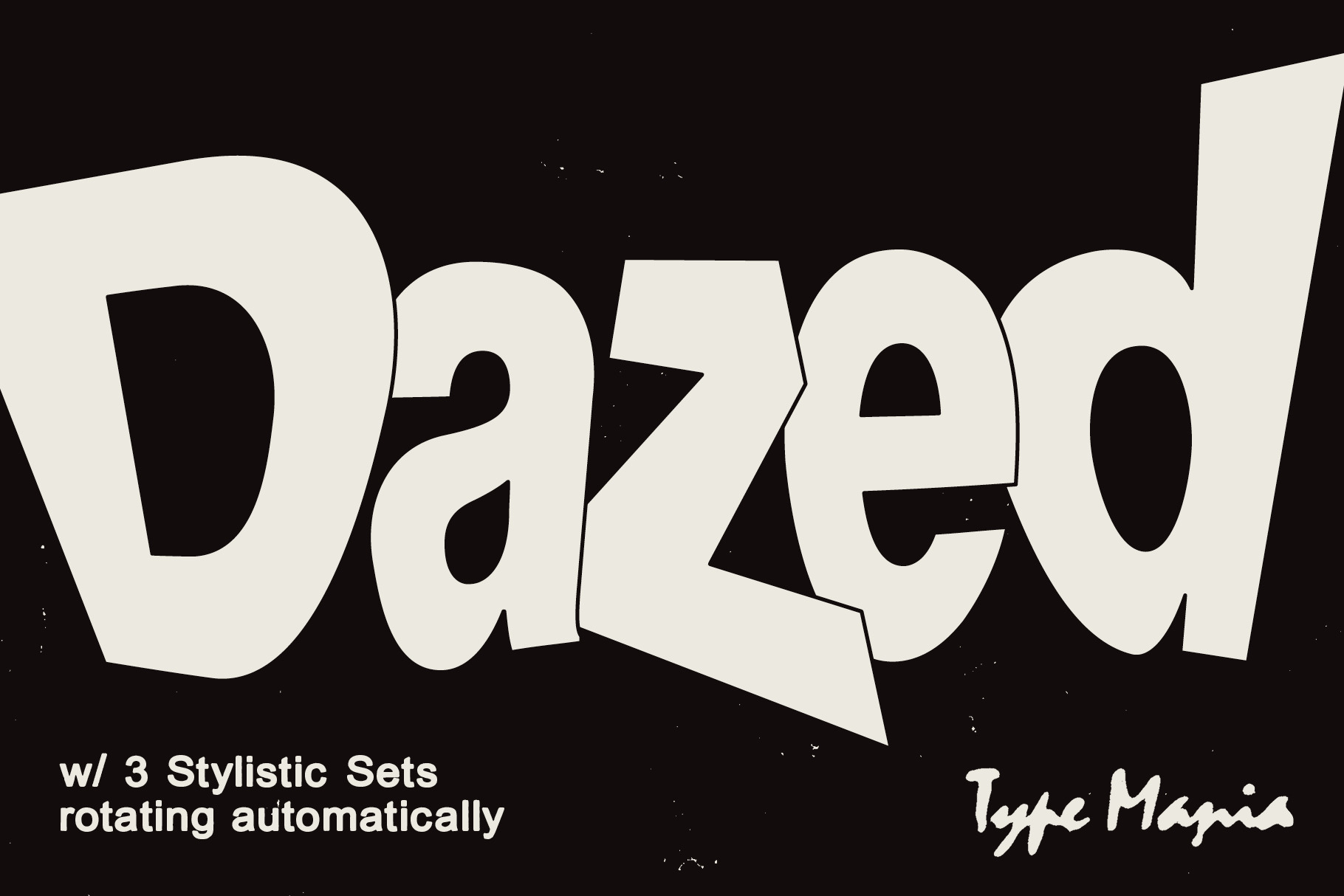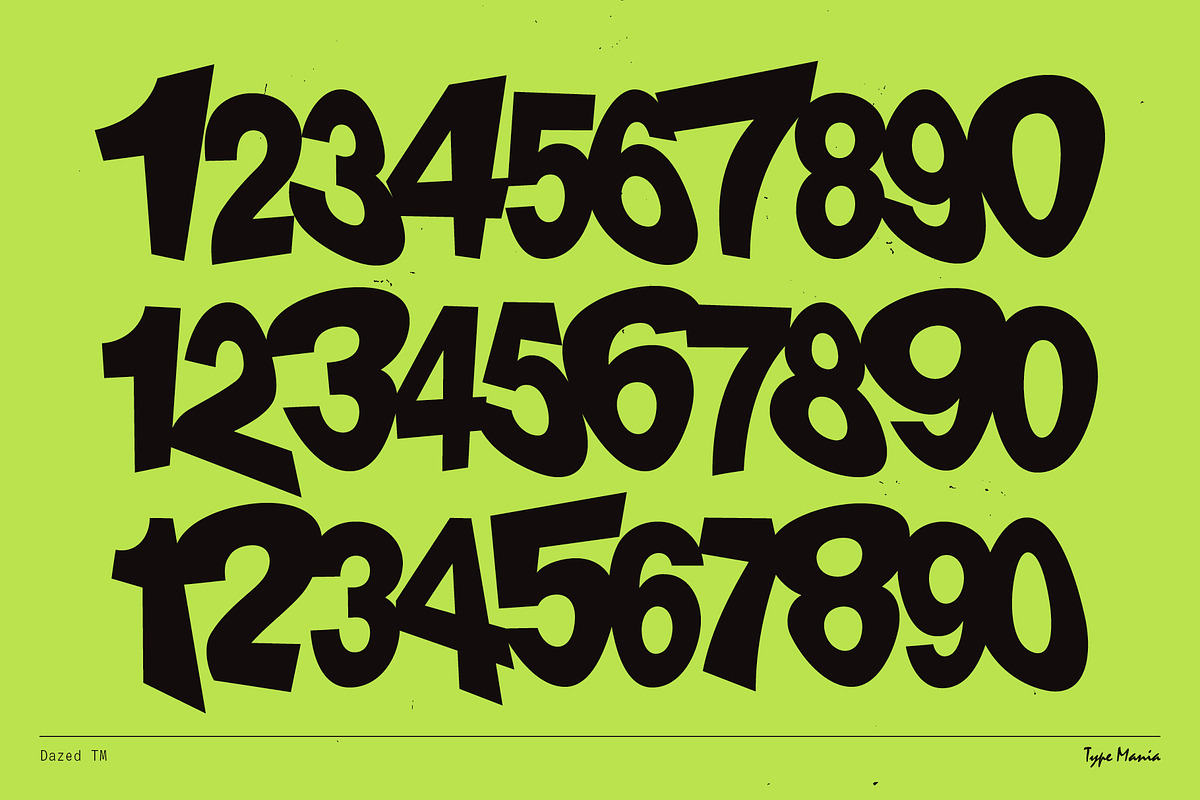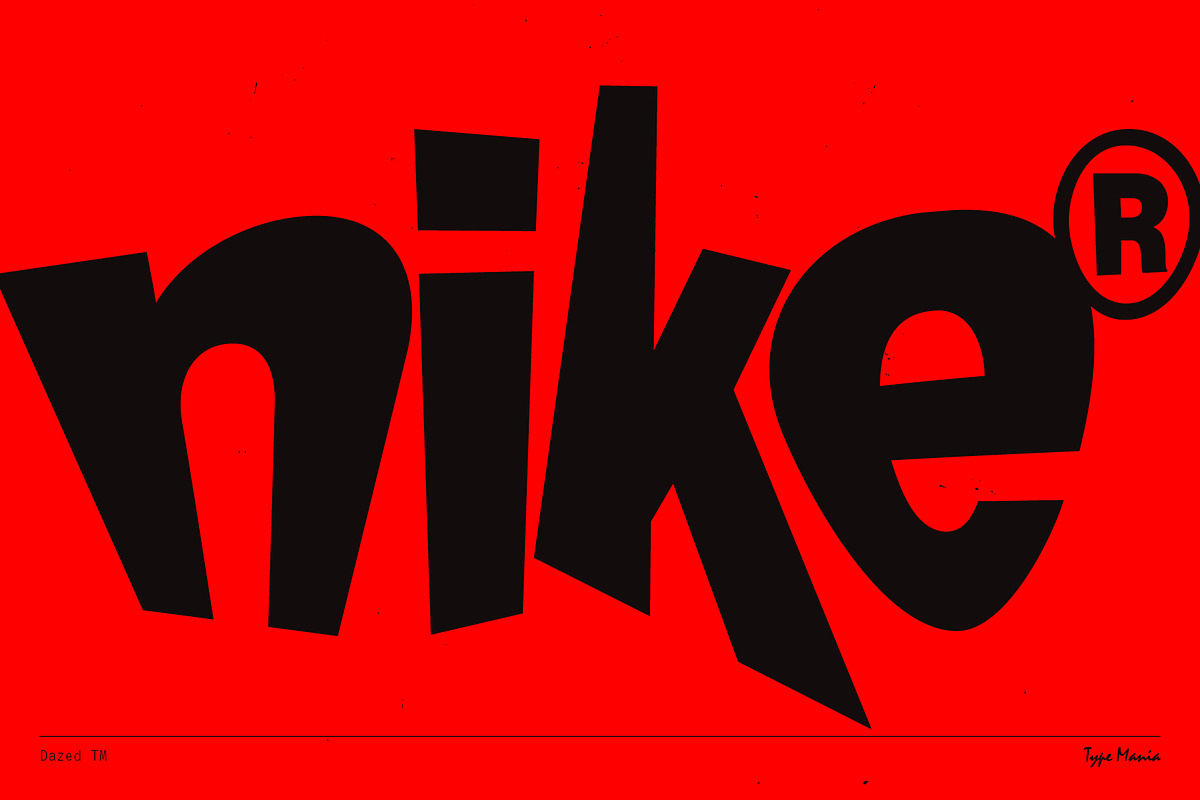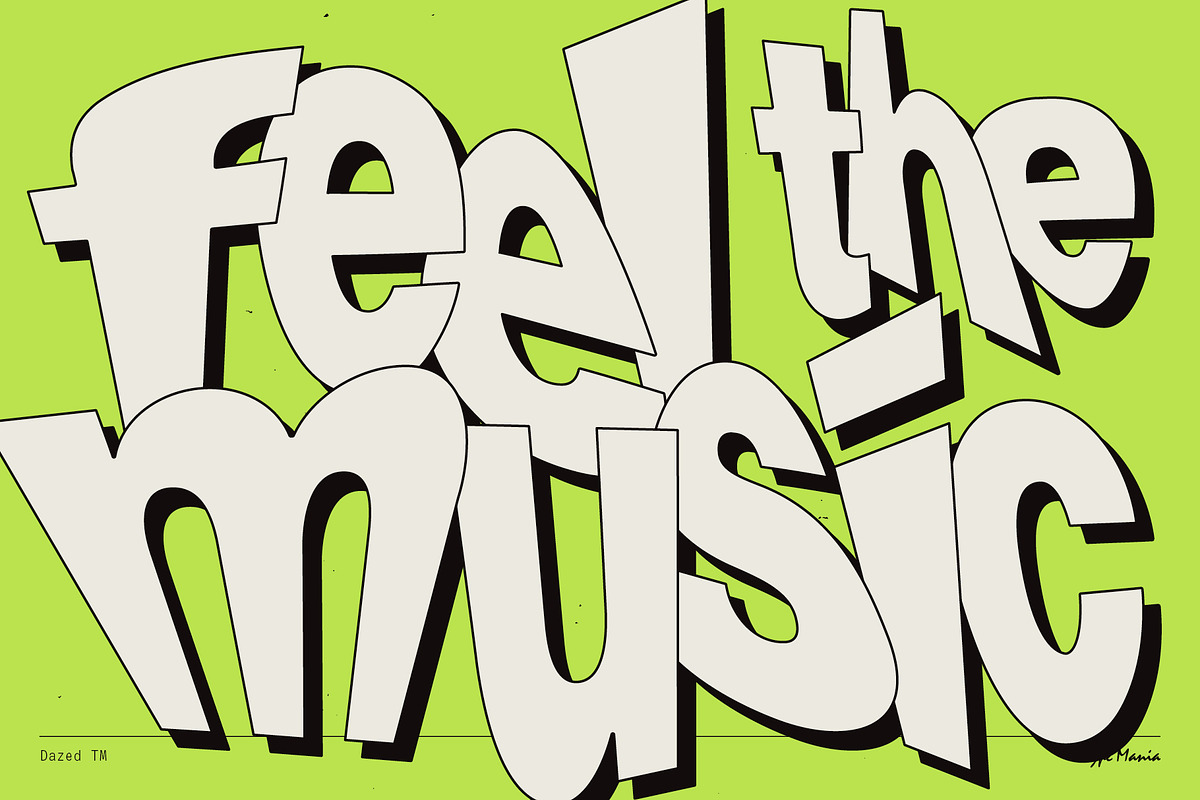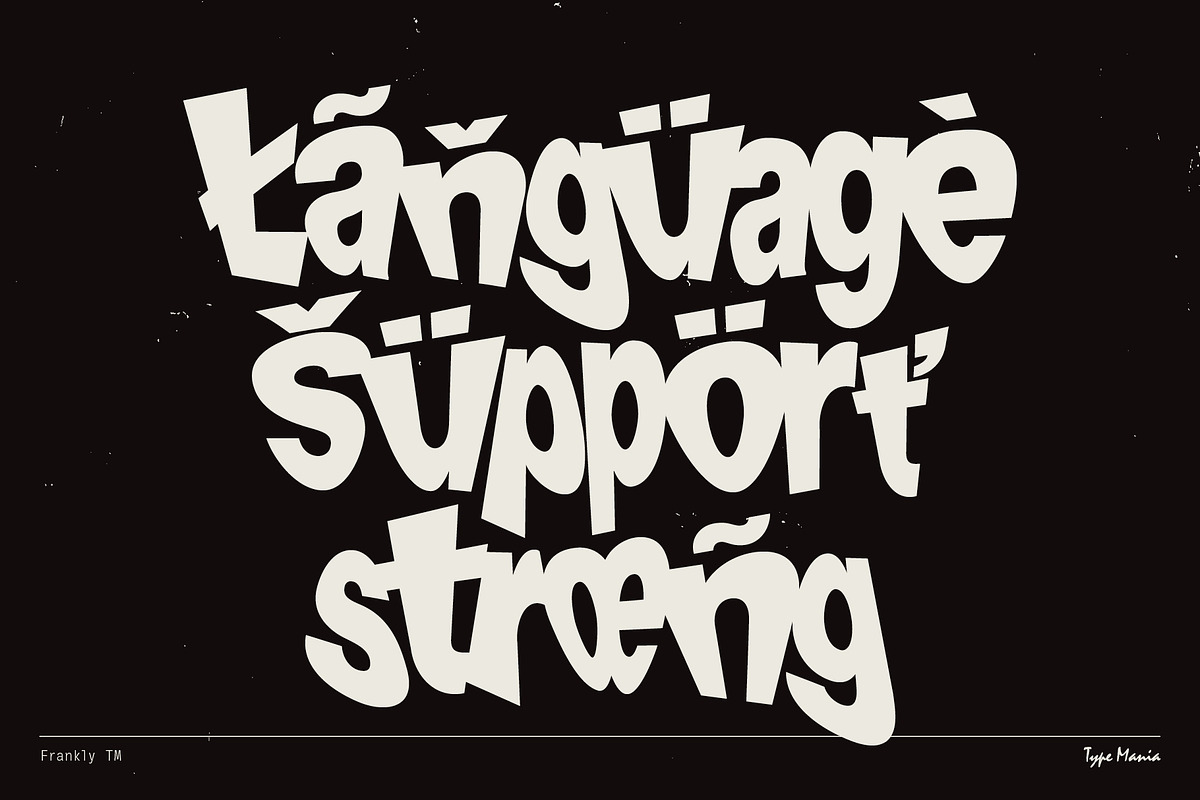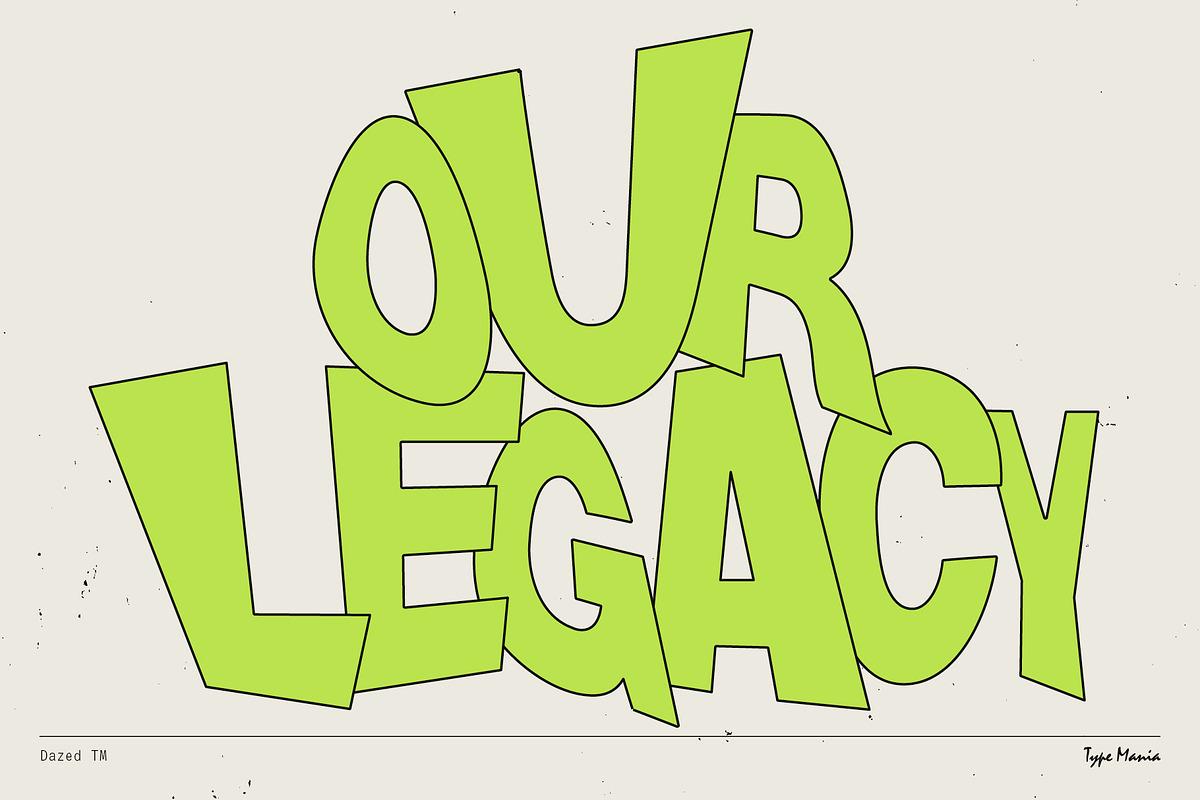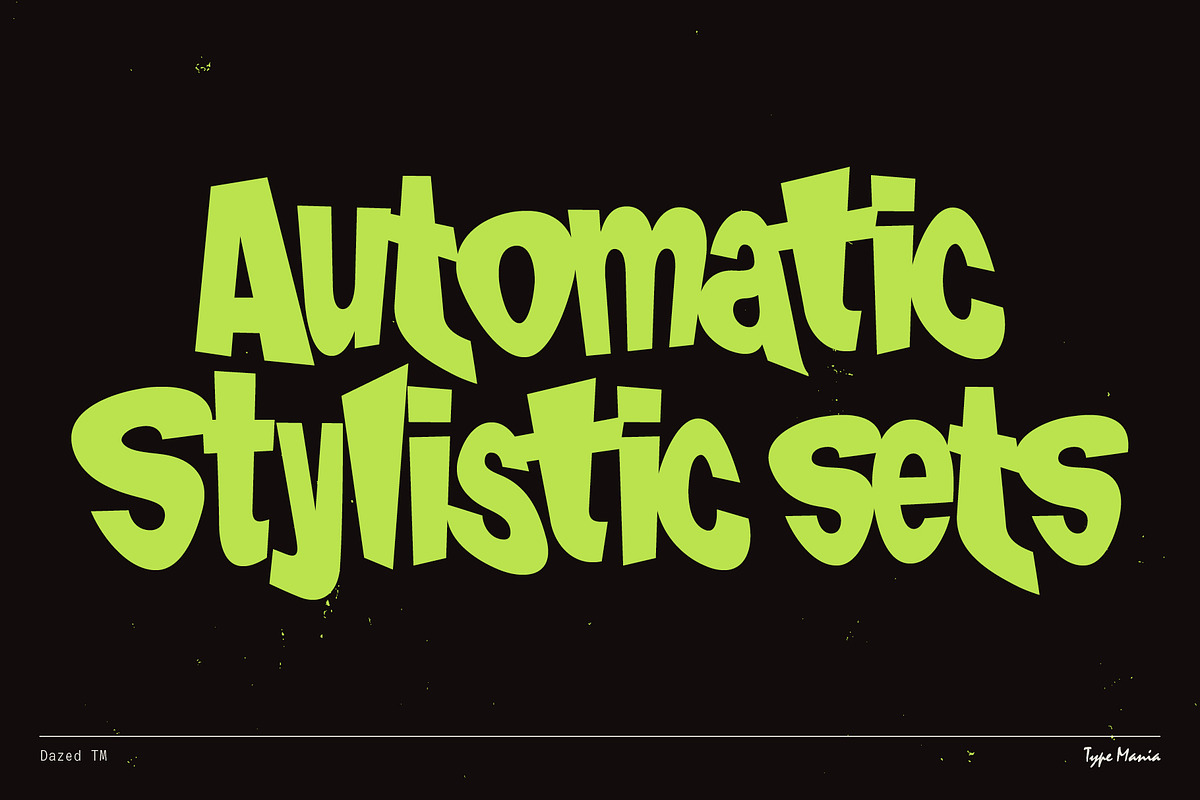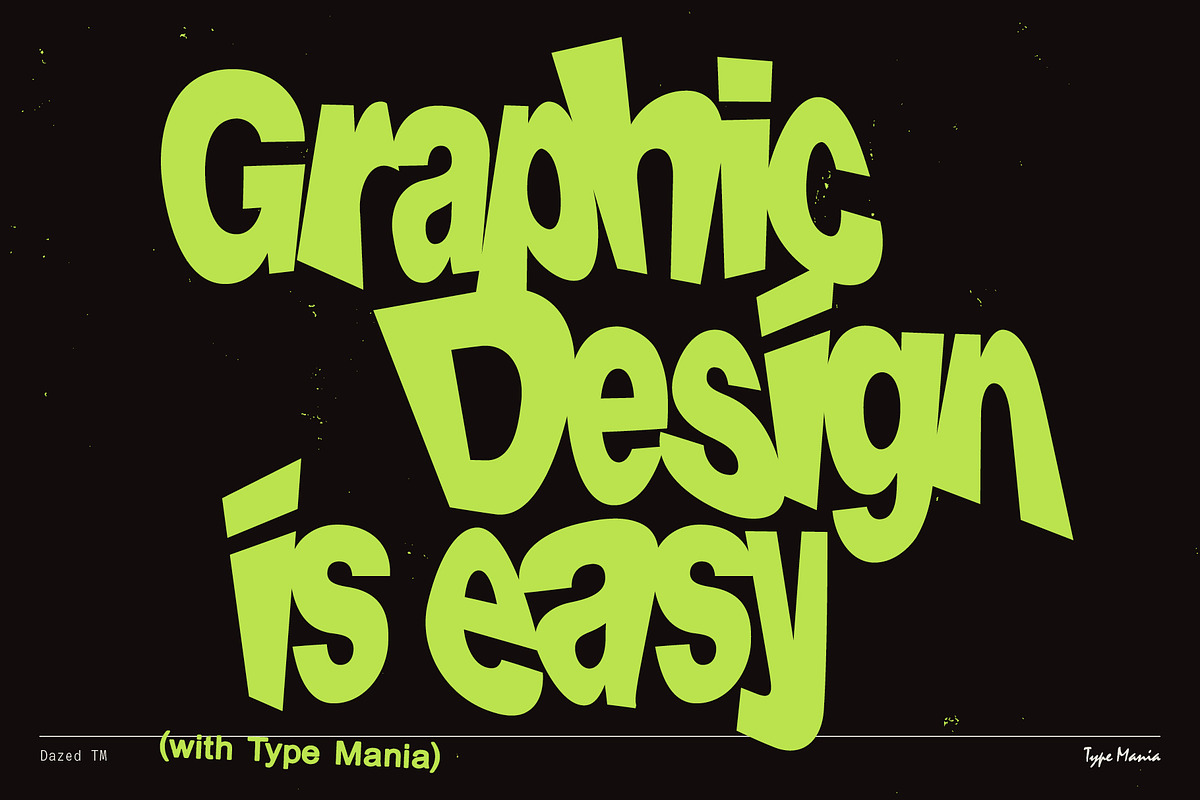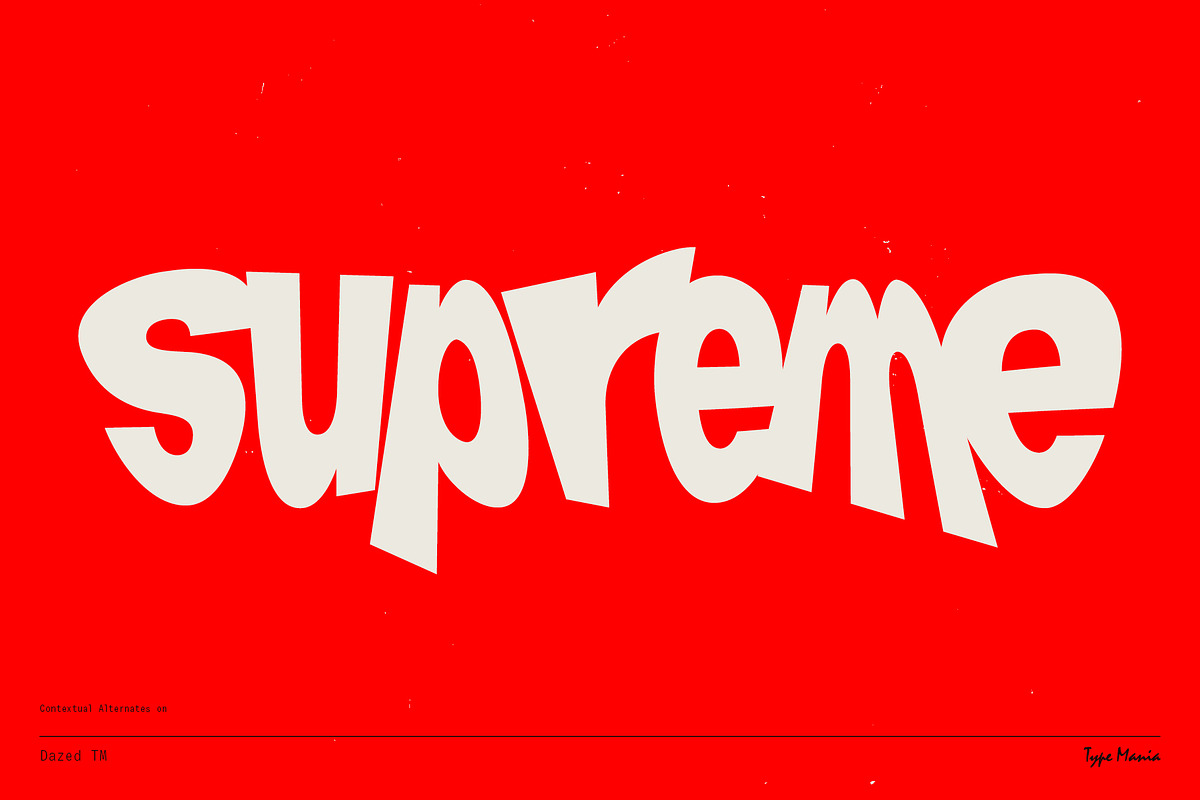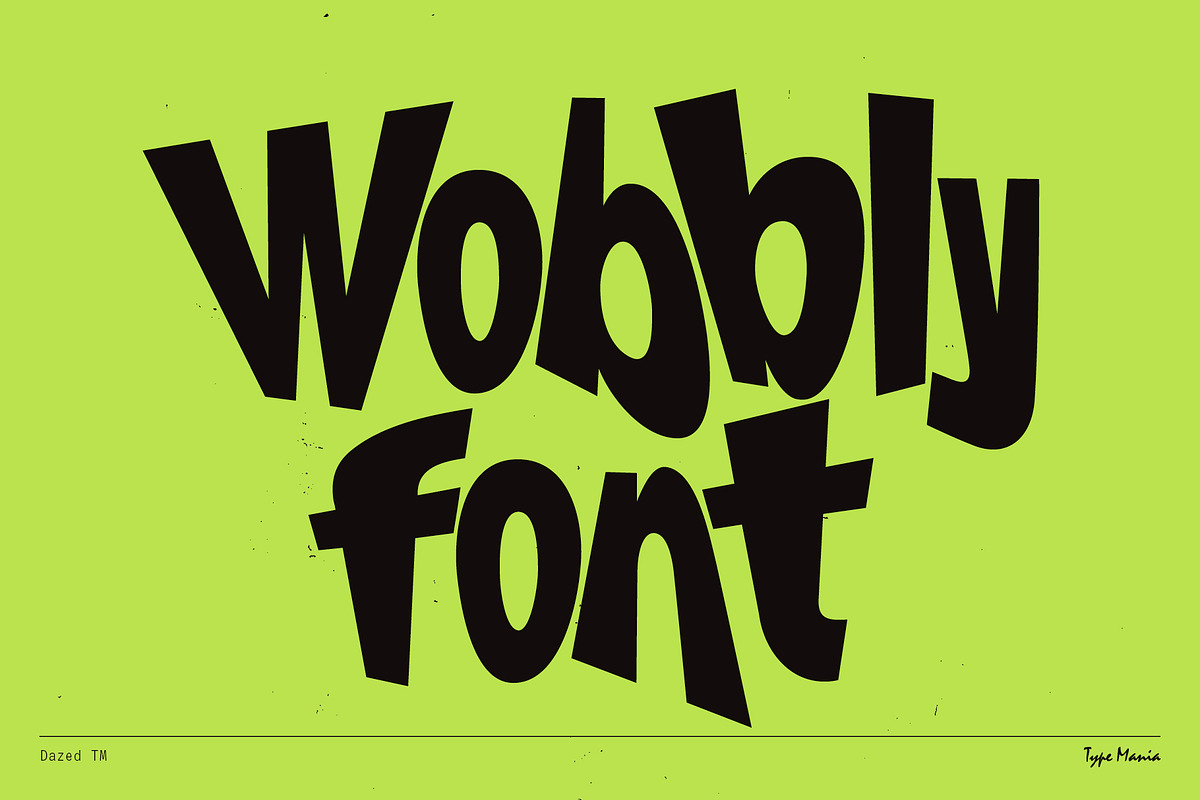
Dazed TM – Warped Font
Dazed TM bends the rules. With its bouncy, freeform feel, it's perfect for offbeat branding or editorial situations. Three stylistic sets rotate automatically when Contextual Alternates is turned on, ensuring every word is fluid and unpredictable. Get dizzy 😵💫
OpenType features
- 3 stylistic sets
- The font is programmed to automatically shift between the stylistic sets
Languages
- Basic Latin
- Western European
- Euro
- Central European
- Pan African Latin